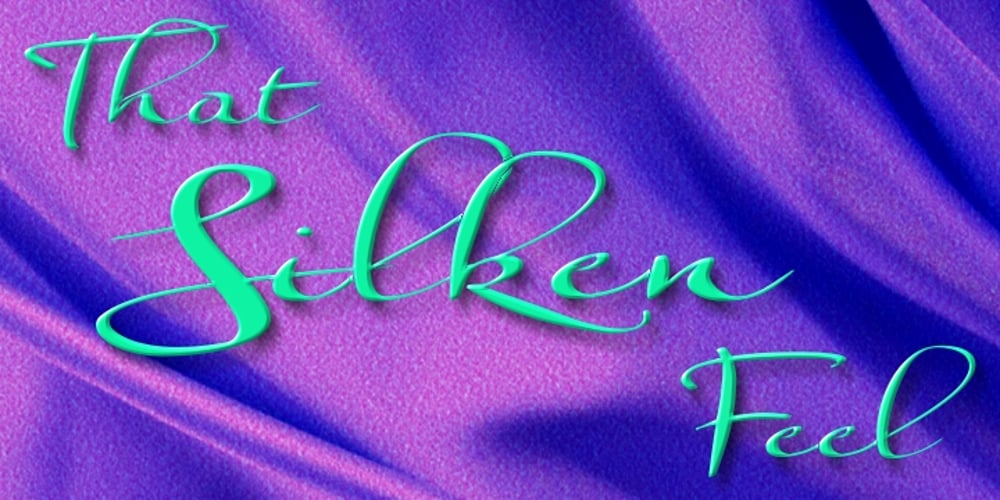
Silken Font Family was designed by Anton Scholtz and published by Scholtz Fonts. Silken contains 3 styles and family package options. Silken is a stylish and contemporary handwriting font that combines the elegance of fonts such as Zapfino with the immediacy of handwriting fonts such as Affable. There are many handwriting fonts out there, but many of them border on being grungy and irregular. This font combines beauty with individuality and spontaneity. Silken comes in a number of styles, the primary style of which is Silken Scarf. This style has a strength and sophistication that is particularly appropriate for headlines and short passages of text (such as invitations, certificates, greeting cards etc.) Silken Thread is a variant of the font family that is even more delicate and polished than Silken Scarf. The third style, Silken Book, with a greater x-height and less dramatic capitals, is more readable and less extreme than the other two styles. It should be used for longer passages or where readability is of primary importance. Suggestions for use: – wedding stationery – greeting cards – valentines day mediaa – beauty product media – lingerie tags – women’s magazine pages – classical music media – award certificates The font is fully professional: carefully letterspaced and kerned. It contains over 235 characters – (upper and lower case characters, punctuation, numerals, symbols and accented characters are present). It includes all the accented characters used in the major European languages.